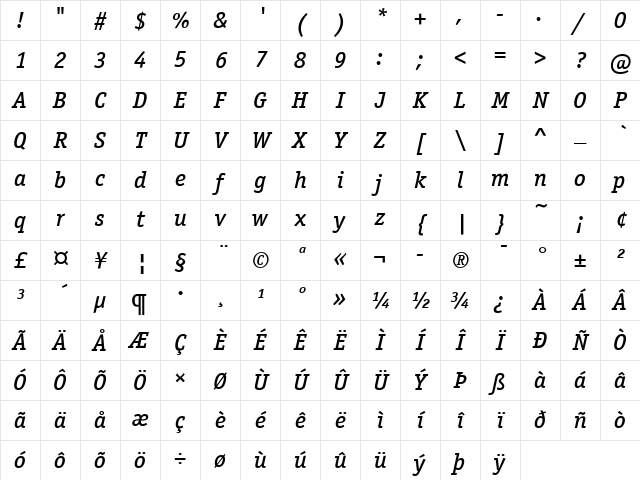
Complete OfficinaSerITCMedium Italic glyph index. Displaying only characters natively supported by OfficinaSerITCMedium Italic font.
OfficinaSerITCMedium is a composed and adaptable typeface that performs quietly and consistently across a wide range of design contexts. The slanted form adds forward momentum and visual energy.